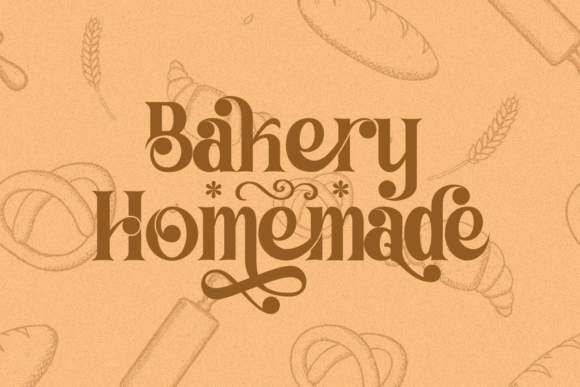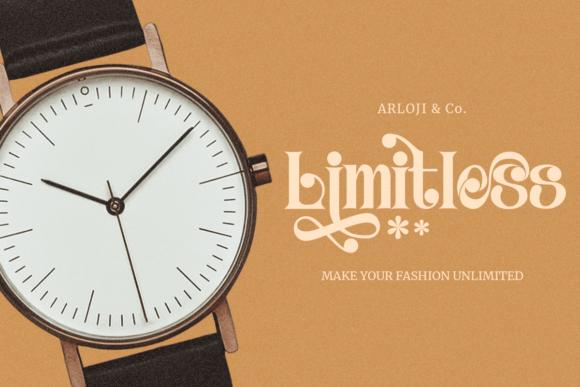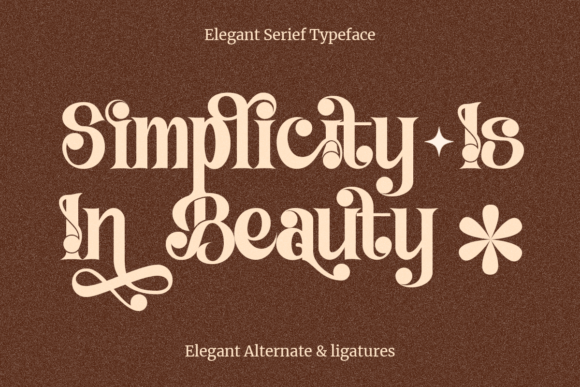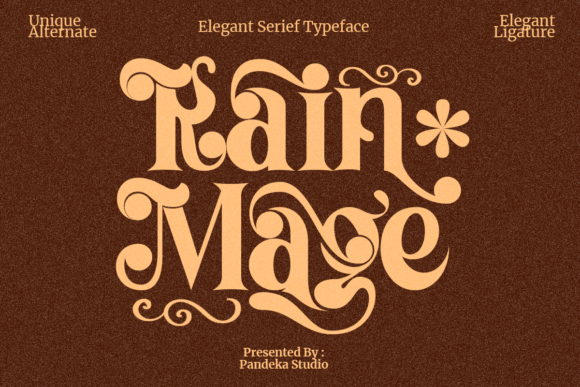
Introduction to Rain Mage Font
Rain Mage feels playfully nostalgic and delivers an incredible vintage aesthetic.
Use this serif font to add that special retro touch to any design idea you can think of Masterfully designed to become a true favorite, this font has the potential to bring each of your creative ideas to the highest level.
Rain Mage Font offers exceptional quality and versatility, making it a valuable addition to your design toolkit. Whether you’re creating for personal projects or commercial use, Rain Mage Font delivers professional results.